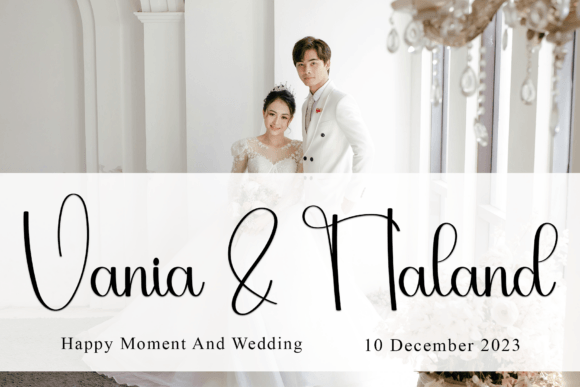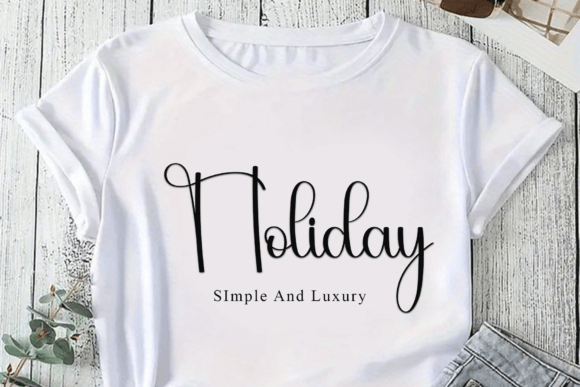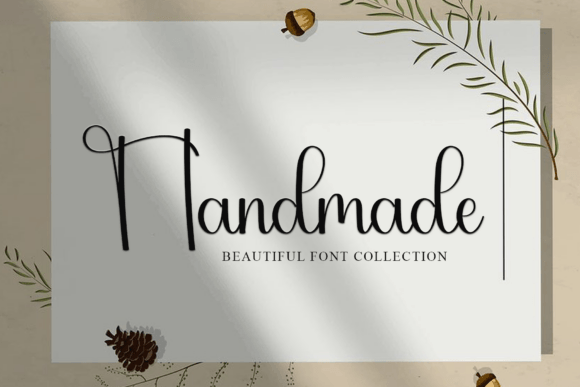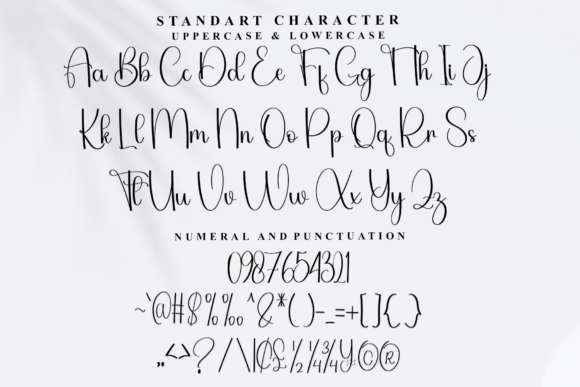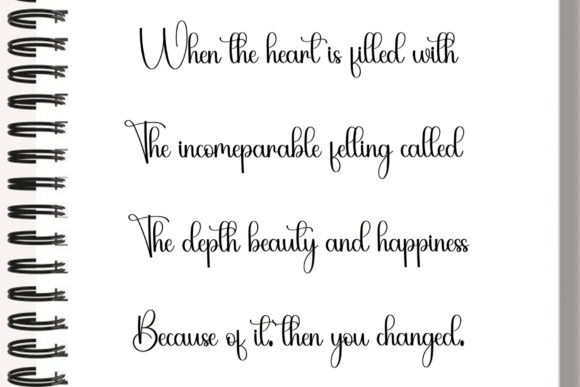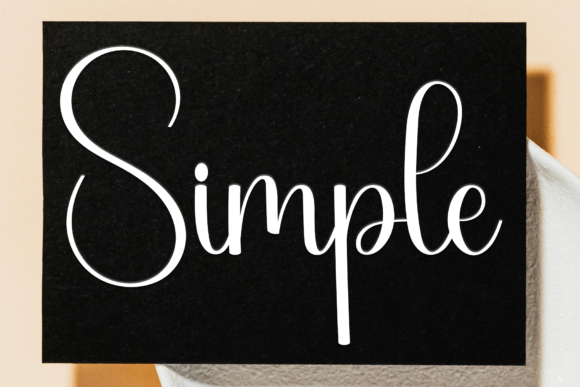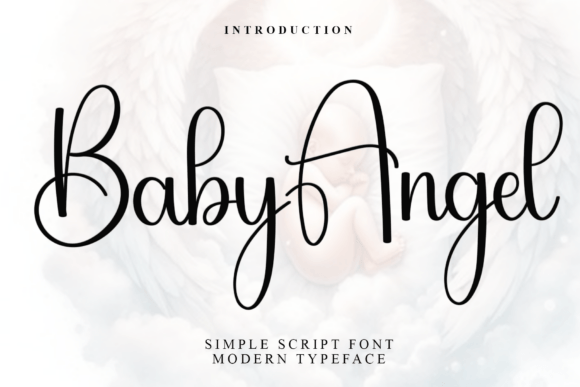
Baby Angel Font: Elevate Your Designs with Elegance and Sophistication
In the world of typography, fonts play a crucial role in conveying the tone and aesthetic of a design. For those seeking a font that exudes elegance, innocence, and charm, the Baby Angel font is an excellent choice. This beautiful font is designed to add a touch of sophistication and natural feel to various design projects, making it a popular choice among designers and crafters.
The Beauty of Baby Angel Font
Baby Angel font is a very beautiful font, characterized by its smooth touch and stunning strokes. The font’s design is inspired by the innocence and purity of angels, making it perfect for projects that require a delicate and charming touch. The smooth curves and lines of the font create a natural feel, allowing designers to add a personal touch to their work.
Versatility of Baby Angel Font
One of the significant advantages of Baby Angel font is its versatility. This font is suitable for a wide range of design projects, including:
- Banners: Create eye-catching banners with Baby Angel font that grab attention and convey your message with elegance.
- YouTube Thumbnails: Use Baby Angel font to create thumbnails that stand out from the crowd and entice viewers to click on your video.
- Logo Designs: Add a touch of sophistication to your logo designs with Baby Angel font, making your brand more memorable and recognizable.
- Wedding Invitation Cards: Make your wedding invitation cards more special with Baby Angel font, adding a romantic and elegant touch to your big day.
- Clothing Mockups: Use Baby Angel font to create stunning clothing mockups that showcase your designs with style and elegance.
- T-Shirts: Design eye-catching t-shirts with Baby Angel font that make a statement and appeal to your target audience.
Why Choose Baby Angel Font?
There are several reasons why designers and crafters choose Baby Angel font for their projects:
- Elegance: Baby Angel font exudes elegance and sophistication, making it perfect for projects that require a high-end feel.
- Readability: The font is designed to be highly readable, ensuring that your message is conveyed clearly and effectively.
- Unique: The font’s unique design sets it apart from other fonts, allowing designers to create distinctive and memorable designs.
Tips for Using Baby Angel Font
To get the most out of Baby Angel font, consider the following tips:
- Pair with other fonts: Experiment with pairing Baby Angel font with other fonts to create a unique and visually appealing design.
- Adjust font size: Adjust the font size to create visual hierarchy and emphasize important information.
- Use contrasting colors: Use contrasting colors to make your design stand out and ensure that the font is highly readable.
In conclusion, Baby Angel font is a beautiful and versatile font that can elevate your designs with elegance and sophistication. Its smooth touch, stunning strokes, and natural feel make it perfect for a wide range of design projects. With its high readability, flexibility, and unique design, Baby Angel font is an excellent choice for designers and crafters seeking to create memorable and impactful designs.